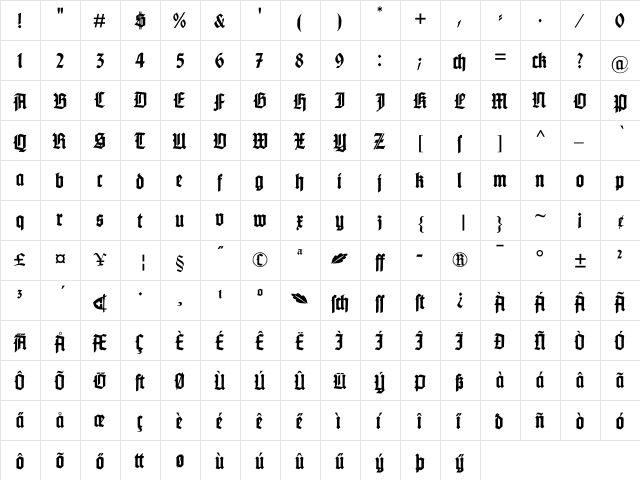
Gotenburg A Bold
| Designer | Dieter Steffmann |
Design Context for Gotenburg A Typeface
Gotenburg A takes a measured approach to typography — its balanced proportions and neutral character make it a reliable workhorse for both digital and print work. Its bold stroke weight gives it real presence on the page.